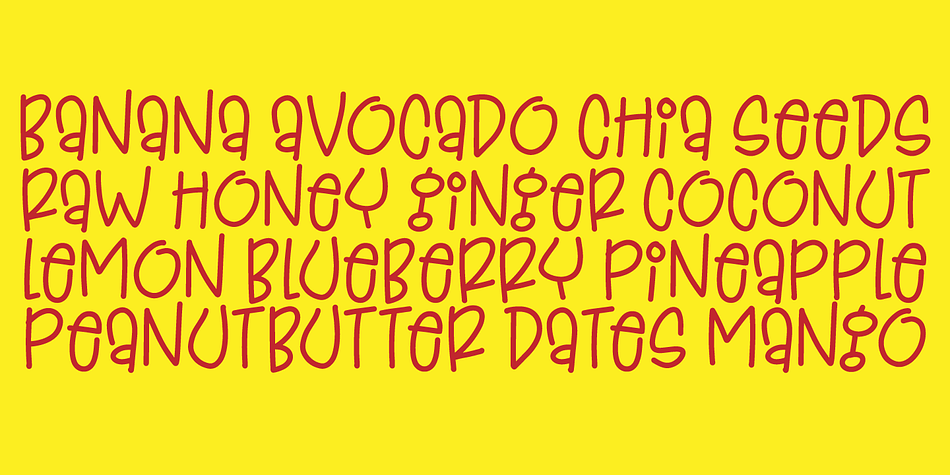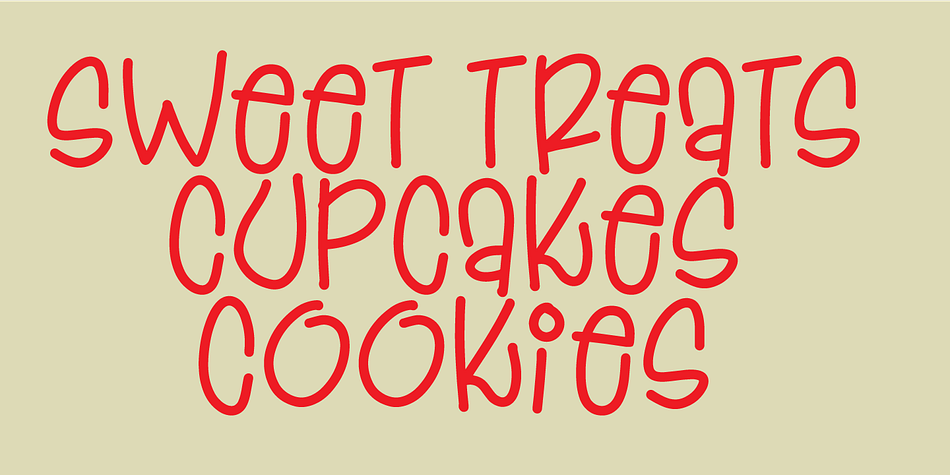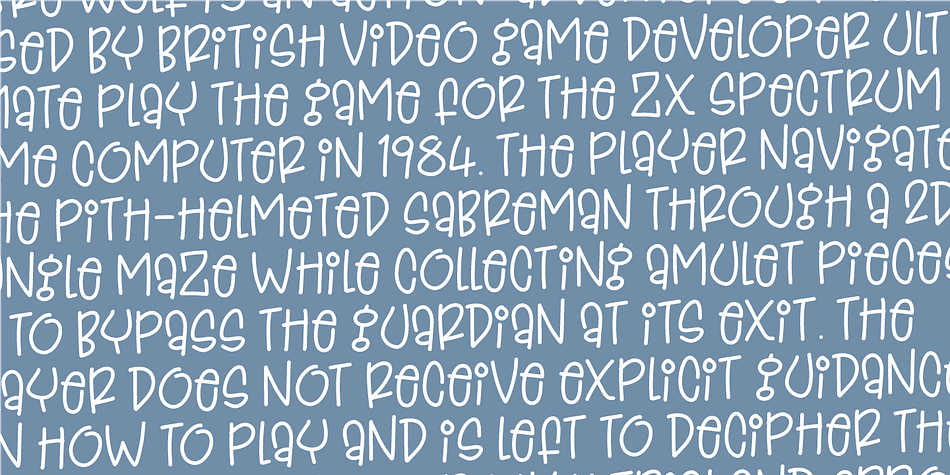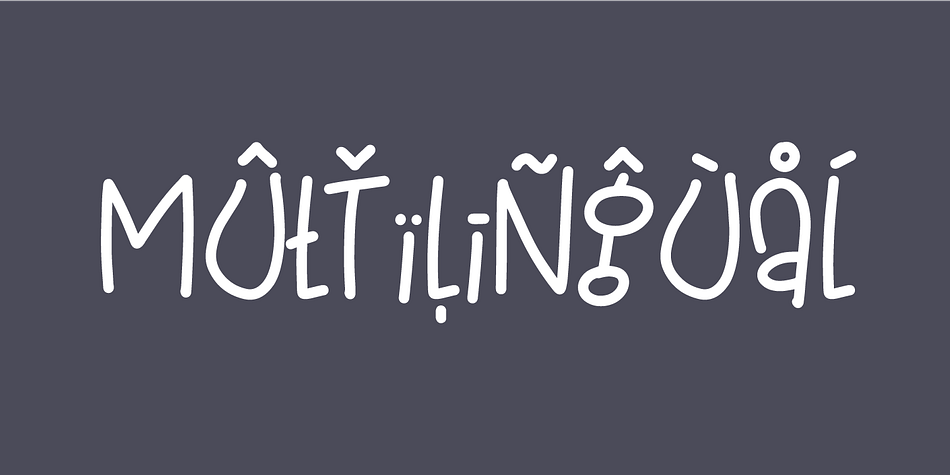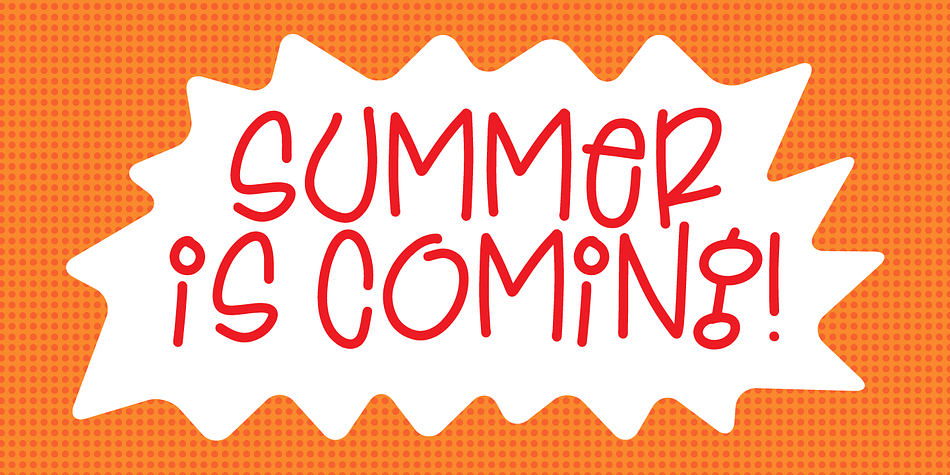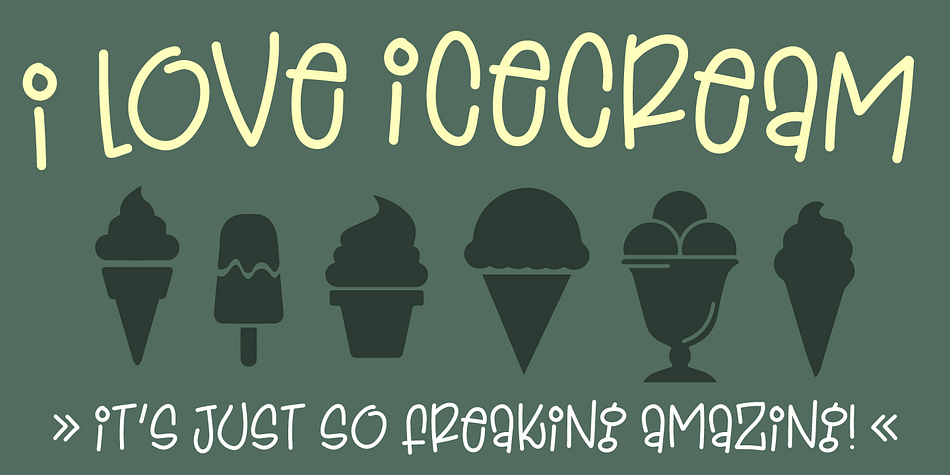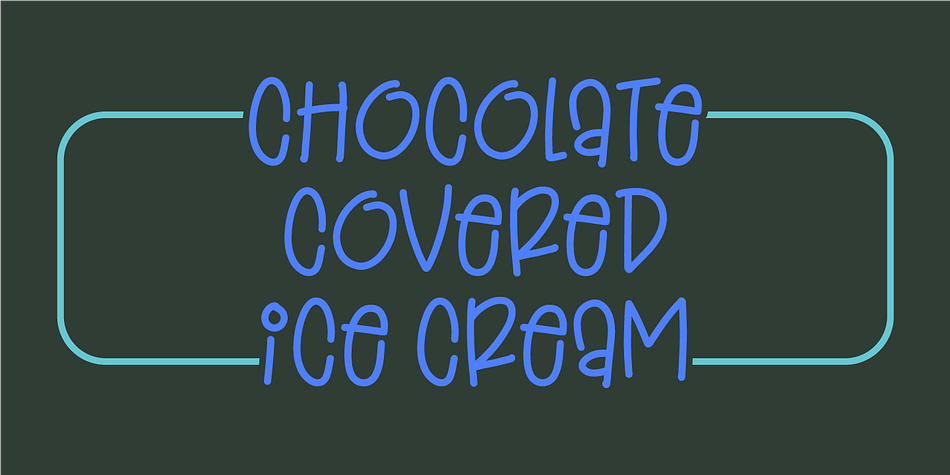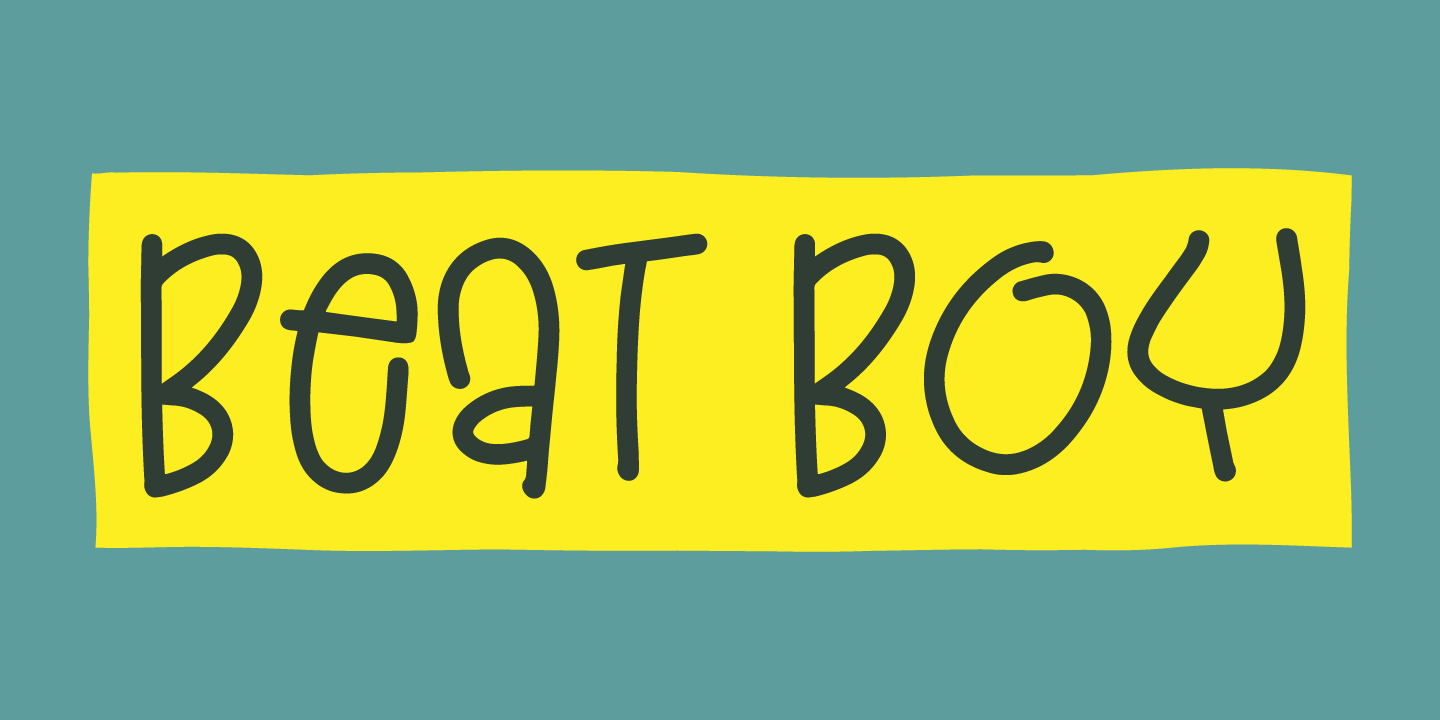
Designed by Jakob Fischer, Beat Boy is a hand display and kids font published by Pizzadude.dk.
Beat Boy is a mix of graffitti and comic ... and perhaps a tiny spoonful of pop and punk! Anyway, Beat Boy serves a lot of purposes: posters, postcards, kids toys, flyers, candy ... just to name a few ... that might need that extra funky funk to spice up your project!